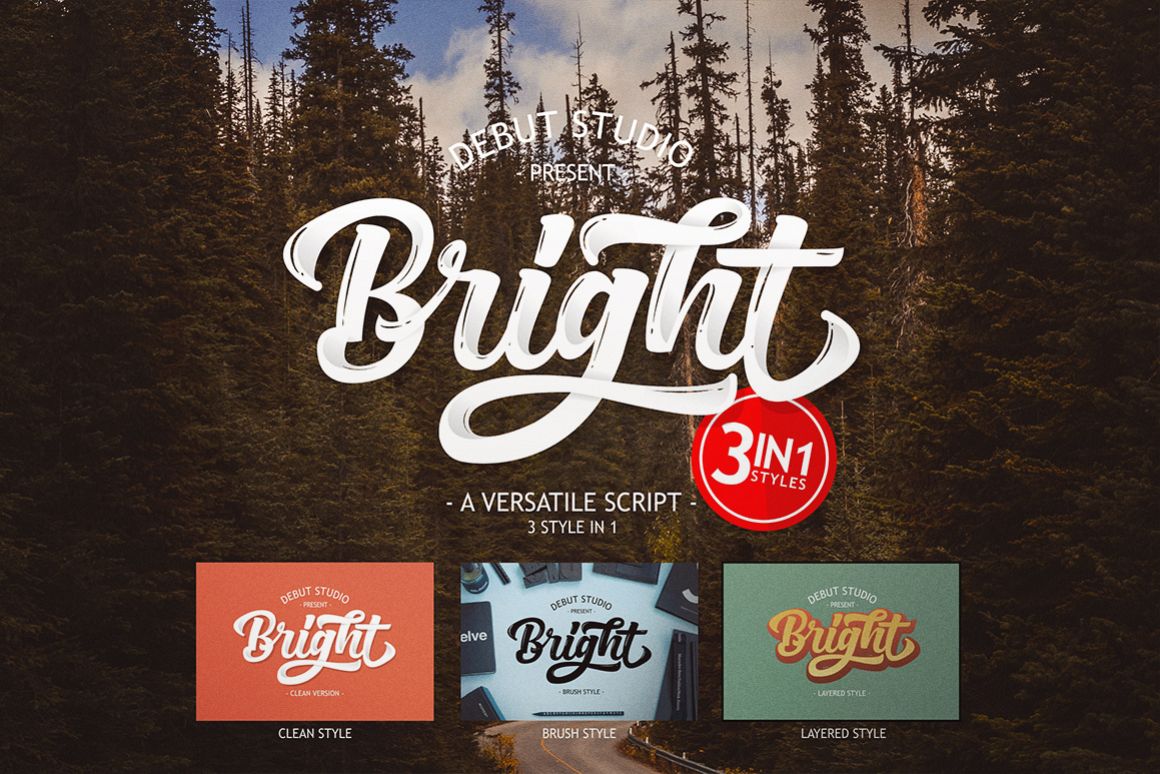
Bright Script (Fonts Trio)
Introducing Bright Script with 3 font styles. This is the latest Debut Studio font that will help you in designing. If you are a designer who likes other Logotype, brands, and other design needs that use bold, then you should have this font.
Bright Script is available in 3 font styles
- Bright Script (Brush Version), This version will be very well used for the purposes of lettering design as it is now a trend used in social media to share a wise with poster, inspirational, motivation quote and other words.
- Bright Script (Clean Version), This font is suitable for logo design purposes, using this font of your logo will be very cool and proffesional for t-shirt, branding product, and other design needs.
- Bright Script (Layered Version), With this version, allows you to create a font display with a vintage retro stye, with 3 types of fonts available, you can arrange them to get the interesting fonts.
- Alternate Stylistic Character
- Multilingual support : AÀÁÂÃÄÅCÇEÈÉÊËIÌÍÎÏÑÒÓÔÕÖUÙÜÚÛÝŸ?ŸÆŒß